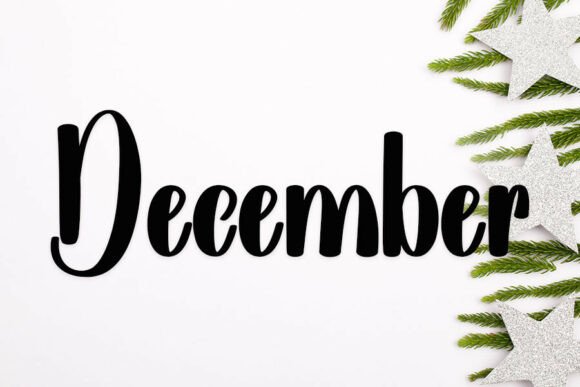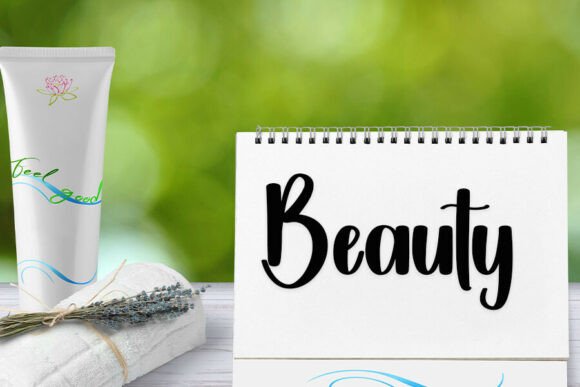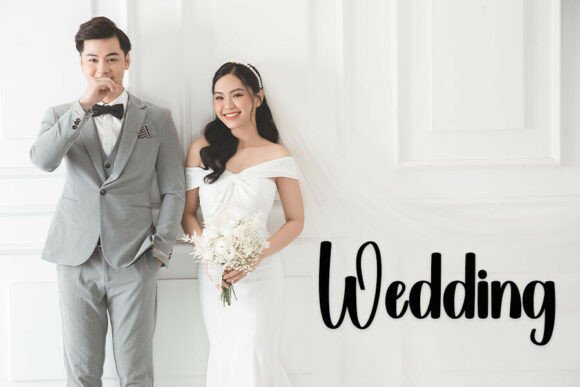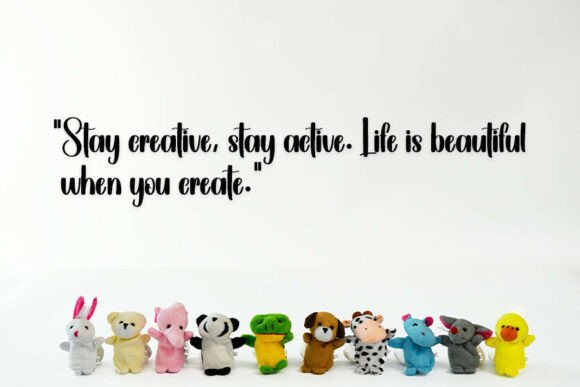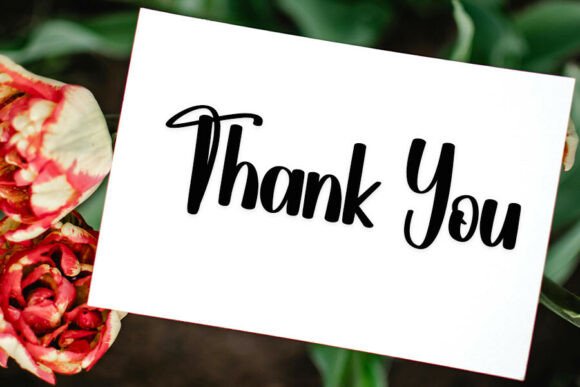
The Magic of Birthday Font: Adding a Touch of Whimsy to Your Designs
There’s something special about creating a birthday card or gift tag for a loved one – the excitement of choosing the perfect words, the thrill of adding a personal touch, and the joy of seeing the recipient’s face light up. For designers, this creative moment is a chance to let their imagination run wild and add a little extra magic to their work. That’s where the Birthday Font comes in – a festive and merry typeface that captures the spirit of the holiday season.
This enchanting font is perfect for adding a touch of whimsy to your designs, with its decorative elements and playful flair. Whether you’re creating a greeting card, gift tag, or holiday-themed project, the Birthday Font brings a cheerful and nostalgic ambiance to your words. With its PUA encoding, you can access all of the amazing glyphs and ligatures with ease, making it a valuable addition to any designer’s toolkit.
Birthday Font Key Features
- Font Type: Script Font, designed specifically for birthday and celebration purposes.
- Character Set: Includes a wide range of characters, including uppercase and lowercase letters, numbers, and special characters.
- Unique Characteristics: Features a playful, cursive design with flourishes and ornaments, making it perfect for adding a celebratory touch to birthday invitations, cards, and other designs.
Birthday Font Review
Overall, I think the Birthday Font has some lovely touches, but it’s not without its flaws. ✨ I love the whimsical feel it gives to any design project. It’s perfect for creating a festive atmosphere, especially around special occasions like birthdays and weddings. The font’s playful, handwritten style makes it a great choice for social media graphics, party invitations, and other celebratory materials.
However, I do have a few concerns. ⚠️ The font’s readability can be a bit of an issue, especially at smaller font sizes. The letters can get a bit messy and hard to decipher, which might not be ideal for long blocks of text. Additionally, the font’s design might not be suitable for formal or professional projects, as it can come across as too casual.
Here are some specific pros and cons:
- ✨ Playful, handwritten style perfect for celebrations
- ✨ Great for social media graphics, party invitations, and other festive materials
- ⚠️ Can be difficult to read at smaller font sizes
- ⚠️ May not be suitable for formal or professional projects
Overall, I think the Birthday Font is a fun and creative choice for the right projects. Just be mindful of its limitations, and use it in moderation to avoid overwhelming your design.
The Birthday Font is ideal for:
Designing birthday invitations, cards, and posters.
Creating social media graphics and posts for birthday celebrations.
Adding a festive touch to presentations and documents.
Use the Birthday Font in combination with other festive elements, such as balloons, confetti, and party hats.
Experiment with different font sizes, colors, and alignments to create a unique design.
Use the Birthday Font to add a personal touch to your designs and make them more engaging and memorable.